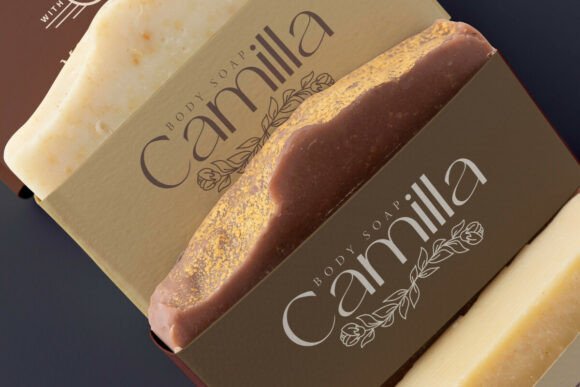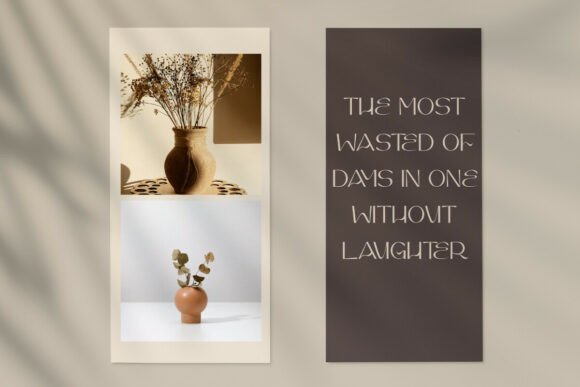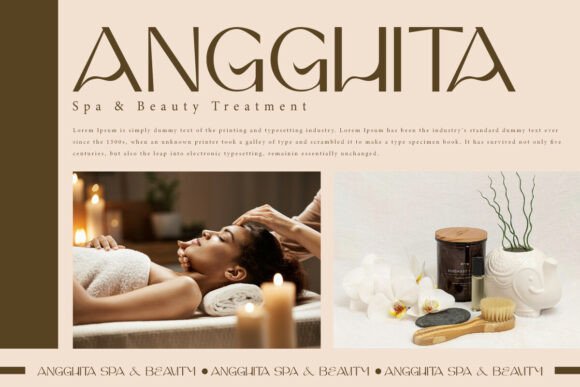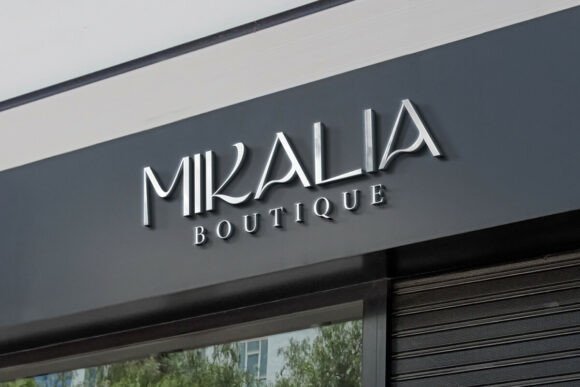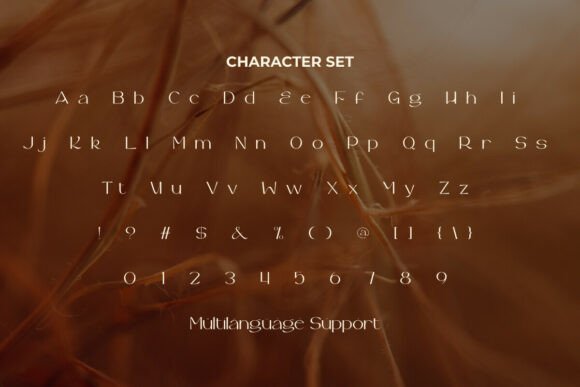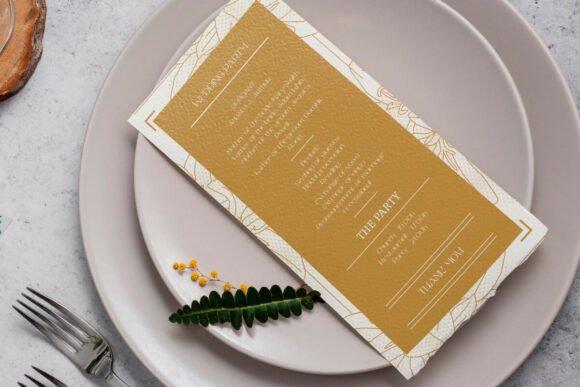
Introduction to Momentary Font
Have you ever found yourself captivated by the simple elegance of a perfectly crafted headline, its clean lines and precise curves transporting you to a world of refined sophistication? For designers seeking to elevate their creative projects to the next level, the Momentary Font offers a rare opportunity to experience the perfect blend of high-fashion luxury and minimalist charm.
As a designer, you understand the importance of choosing the right typeface to convey the essence of your message. With its striking curves and generous tracking, the Momentary Font is the definitive choice for any project demanding a refined, contemporary aesthetic. From editorial mastheads to luxury cosmetic branding, this exquisite typeface is sure to leave a lasting impression.
Whether you’re working on a high-quality design project or simply seeking a free download to enhance your design resource library, the Momentary Font is an invaluable addition to any designer’s toolkit. Its PUA-encoded glyphs and swashes offer effortless access to all the creative possibilities this stunning typeface has to offer.
Key Features of Momentary Font
- Unique characteristics: Momentary Font features a distinctive and modern aesthetic, making it perfect for creative projects that require a unique touch.
Honest Review: Momentary Font
I recently stumbled upon the Momentary Font, a free download that has been making waves in the design community. As a designer, I was excited to give it a try and see if it lives up to the hype.
- ✨ The Momentary Font has a beautiful, high-quality design that’s perfect for creative projects that require a unique touch.
- ✨ The transparent background is a great feature, allowing for seamless integration with any design element.
- ✨ The font is highly customizable, making it easy to adjust to fit your specific design needs.
- ⚠️ The Momentary Font may not be suitable for projects that require a more traditional or formal font style.
- ⚠️ The font may not be compatible with all design software or systems.
Overall, I’m impressed with the Momentary Font. It’s a great design resource that’s perfect for creative projects that require a unique touch. While it may have some limitations, the benefits far outweigh the drawbacks. I highly recommend it as a free download for any designer looking to add some personality to their designs.
Momentary Font is a high-quality design resource ideal for creative projects. This versatile font features a transparent background, making it perfect for use in a variety of applications.
Common Use Cases for Momentary Font
Momentary Font is ideal for a range of creative projects, including:
- Digital design
- Documents